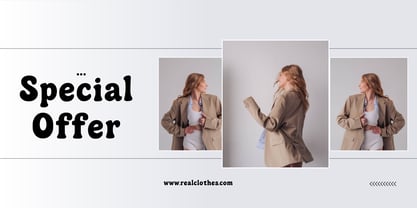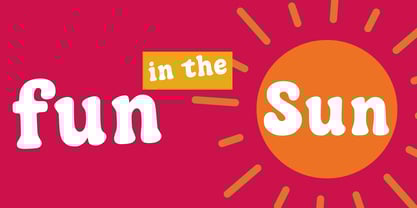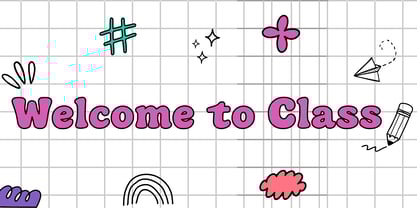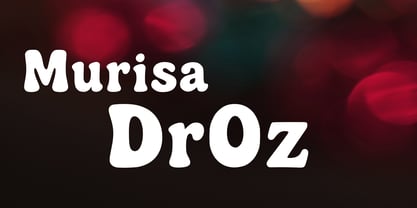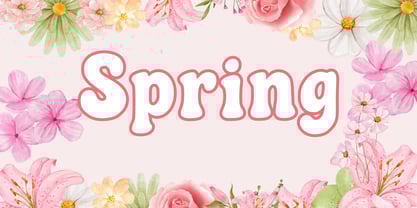
Murisa DrOz
by Murisa Studio
The Murisa DrOz Font Family was designed by Lili Sadili and published by Murisa Studio. Murisa DrOz contains 1 styles.
✨ Murisa Freeman – Where Bold Meets Soul Step into a world where typography becomes personality. Murisa Freeman is not just a font—it’s a statement. With its bold, rounded contours and playful retro charm, this typeface radiates warmth, confidence, and timeless style. Whether you're designing for high-impact branding, editorial elegance, or digital storytelling, Murisa Freeman delivers a voice that’s both powerful and irresistibly friendly. 🌍 Global Elegance Crafted with care to support Eastern European languages, Murisa Freeman speaks to a wide audience—literally. Its multilingual versatility ensures your message resonates across borders, cultures, and hearts. 🎨 Design That Dares Each character is meticulously shaped to balance vintage flair with modern clarity. The result? A font that feels familiar yet fresh, nostalgic yet forward-thinking. Perfect for logos, packaging, posters, and anything that demands attention. 💎 Exclusivity in Every Curve Murisa Freeman isn’t for everyone—it’s for visionaries. For creators who understand that typography is more than letters; it’s emotion, impact, and identity. This is the font that turns heads, sparks conversations, and elevates brands to iconic status